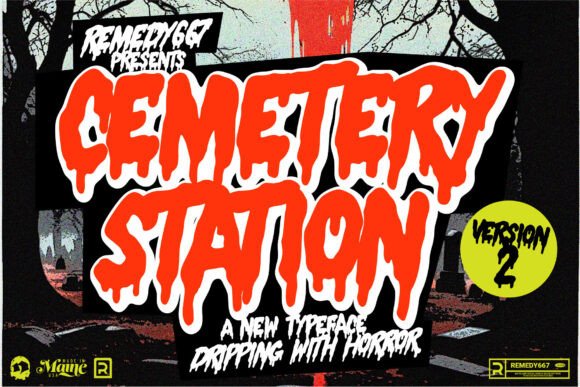
Cemetery Station Font: Get Spooky with the Creepy New Horror Font Collection
Are you looking for a font that will add a touch of spookiness to your designs? Look no further than Cemetery Station, the creative new horror font collection that’s perfect for any horror project. This scary font is dripping with style and features a unique blend of dripping style and contextual alternates for numbers and letters, making it ideal for all things eerie.
What Makes Cemetery Station Font So Special?
Cemetery Station font is not just any ordinary font. Its unique features make it stand out from the rest. Here are some of the key features that make Cemetery Station font a must-have for any horror-themed design project:
- Dripping Style: The font features a dripping style that’s perfect for creating spooky and eerie designs. The letters and numbers have a dripping effect that gives them a creepy and abandoned look.
- Contextual Alternates: The font includes contextual alternates for numbers and letters, which means that you can create unique and varied designs that are tailored to your specific needs.
- Perfect for Horror-themed Designs: Whether you’re creating Halloween party invites, horror-themed posters, or any other type of design that requires a spooky touch, Cemetery Station font is the perfect choice.
How to Use Cemetery Station Font in Your Designs
Cemetery Station font is versatile and can be used in a variety of design projects. Here are some ideas to get you started:
- Halloween Party Invites: Give your Halloween party invites a spooky touch with Cemetery Station font. The font’s dripping style and contextual alternates will add a creepy and eerie feel to your invites.
- Horror-themed Posters: Create professional-looking horror-themed posters with Cemetery Station font. The font’s unique features will add a touch of spookiness to your posters and make them stand out.
- Social Media Graphics: Use Cemetery Station font to create spooky social media graphics that will grab the attention of your followers.
- Logos and Branding: Cemetery Station font can also be used to create logos and branding materials for horror-themed businesses or events.
Benefits of Using Cemetery Station Font
There are many benefits to using Cemetery Station font in your designs. Here are some of the key advantages:
- Unique and Creative: Cemetery Station font is a unique and creative font that will add a touch of spookiness to your designs.
- High-quality: Cemetery Station font is a high-quality font that’s perfect for professional designs.
- Versatile: The font can be used in a variety of design projects, from Halloween party invites to horror-themed posters.
What Others Are Saying About Cemetery Station Font